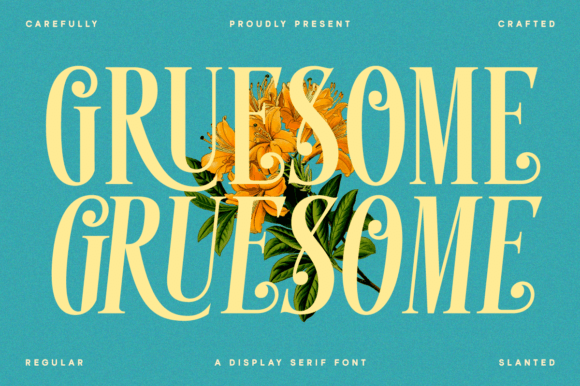
Introducing Gruesome: A Vintage Serif Font with a Unique Twist
In the world of typography, fonts play a crucial role in conveying the tone and personality of a brand or design. With the numerous font options available, it’s essential to choose one that stands out from the crowd. This is where Gruesome comes in – a serif font with a vintage look that’s sure to make your designs pop. In this article, we’ll explore the features and benefits of Gruesome, and why it’s the perfect choice for your next design project.
What Makes Gruesome Unique?
Gruesome is a serif font that boasts a range of features that set it apart from other fonts. Its stylistic alternates and ligatures make it a unique and versatile font that’s perfect for a variety of design applications. The font’s vintage look is reminiscent of classic typography, making it ideal for designs that require a touch of nostalgia.
Stylistic Alternates: Adding Personality to Your Designs
Gruesome’s stylistic alternates allow you to add a personal touch to your designs. With a range of alternate characters, you can mix and match to create a unique look that reflects your brand’s personality. Whether you’re designing a logo, invitation, or packaging, the stylistic alternates in Gruesome give you the flexibility to experiment and create something truly special.
Ligatures: Elevating Your Typography
Ligatures are an essential feature in Gruesome, allowing you to create beautiful, flowing text that’s a joy to read. The font’s ligatures are carefully crafted to ensure that your text looks elegant and sophisticated, making it perfect for formal designs such as invitations, magazines, and books.
Perfect for a Variety of Design Applications
Gruesome is a versatile font that’s suitable for a range of design applications. Its vintage look and unique features make it perfect for:
- Logos: Create a lasting impression with a custom logo that showcases your brand’s personality.
- Invitations: Make your invitations stand out with Gruesome’s elegant and sophisticated typography.
- Labels: Add a touch of vintage charm to your labels and packaging.
- Magazines and books: Create a unique and engaging reading experience with Gruesome’s flowing text.
- Greeting and wedding cards: Add a personal touch to your cards with Gruesome’s stylistic alternates and ligatures.
- Packaging: Make your packaging stand out with Gruesome’s vintage look and feel.
- Fashion and makeup: Add a touch of glamour to your fashion and makeup designs with Gruesome’s elegant typography.
- Stationery: Create a lasting impression with custom stationery that showcases your brand’s personality.
- Novels: Create a unique and engaging reading experience with Gruesome’s flowing text.
- Advertising: Make your advertising stand out with Gruesome’s vintage look and feel.
Why Choose Gruesome?
So why choose Gruesome over other fonts? Here are just a few benefits of using Gruesome:
- Unique and versatile: Gruesome’s stylistic alternates and ligatures make it a unique and versatile font that’s perfect for a range of design applications.
- Vintage look: Gruesome’s vintage look is reminiscent of classic typography, making it ideal for designs that require a touch of nostalgia.
- Elegant and sophisticated: Gruesome’s ligatures and stylistic alternates make it perfect for formal designs such as invitations, magazines, and books.
- Easy to read: Gruesome’s flowing text makes it easy to read, even in large blocks of text.
Tips and Tricks for Using Gruesome
Here are a few tips and tricks for getting the most out of Gruesome:
- Experiment with stylistic alternates: Don’t be afraid to experiment with Gruesome’s stylistic alternates to create a unique look that reflects your brand’s personality.
- Use ligatures to elevate your typography: Gruesome’s ligatures are carefully crafted to ensure that your text looks elegant and sophisticated.
- Mix and match with other fonts: Gruesome pairs well with a range of other fonts, so don’t be afraid to experiment with different combinations.
In conclusion, Gruesome is a unique and versatile font that’s perfect for a range of design applications. Its vintage look, stylistic alternates, and ligatures make it a standout font that’s sure to make your designs pop. Whether you’re designing a logo, invitation, or packaging, Gruesome is the perfect choice for your next design project.